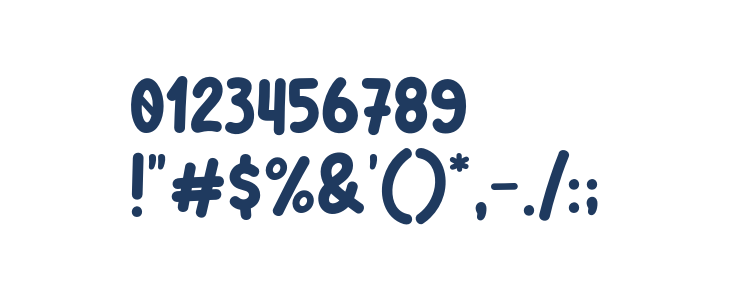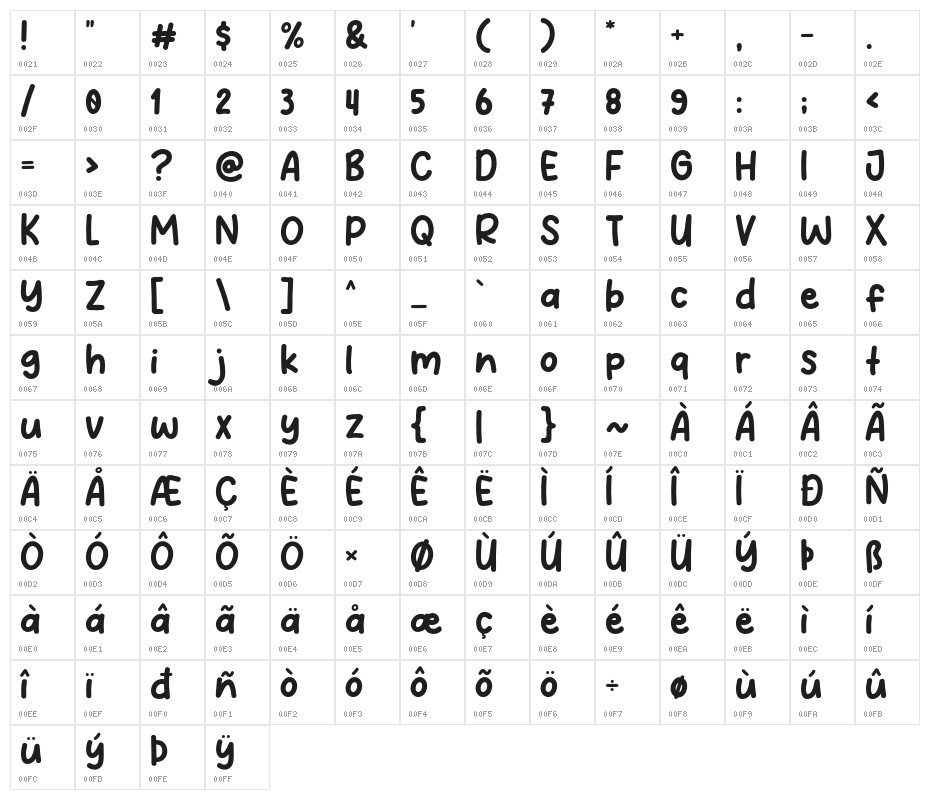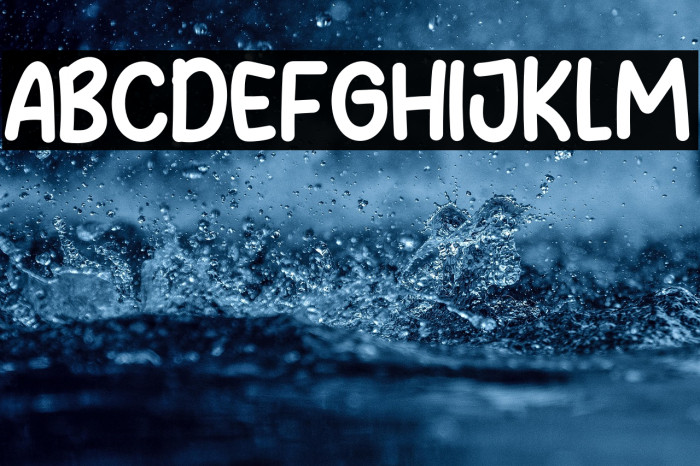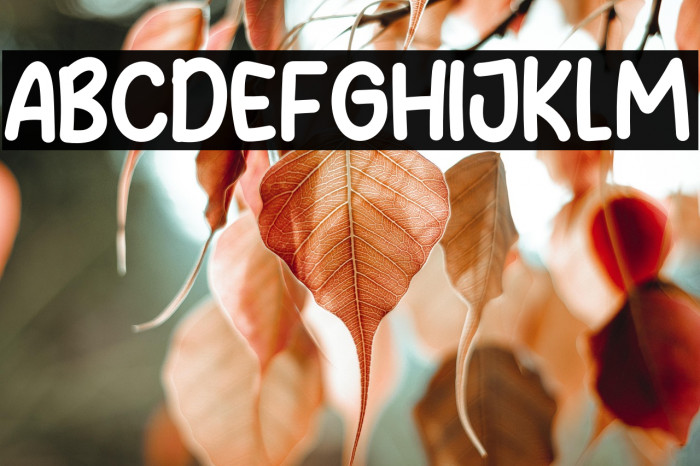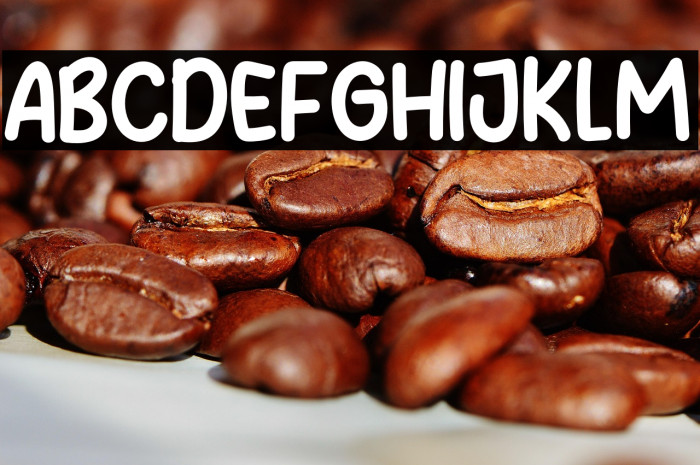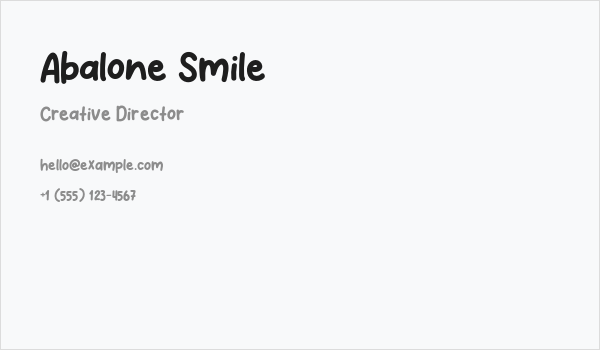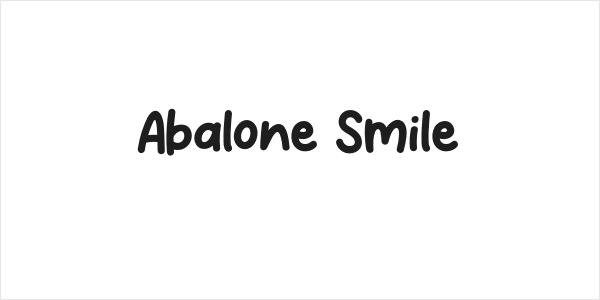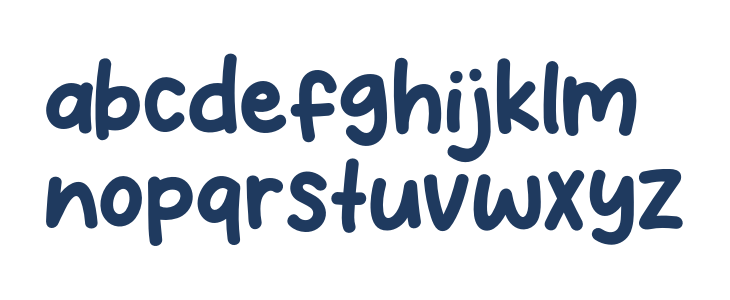
Abalone Smile Font
Abalone Smile Description
This playful and rounded font exudes a friendly and approachable vibe, making it ideal for informal and creative projects. The characters are bold and slightly irregular, giving them a hand-drawn appearance that adds a touch of whimsy. The uppercase and lowercase letters maintain a consistent style, with smooth curves and a uniform thickness throughout. Numbers and special characters are designed to match the overall aesthetic, ensuring a cohesive look across all text elements. This font is perfect for projects that require a fun and engaging visual element, such as children's books, greeting cards, or playful branding materials.
| Proposed Projects | Ideal for children's books, greeting cards, playful branding, and creative projects. |